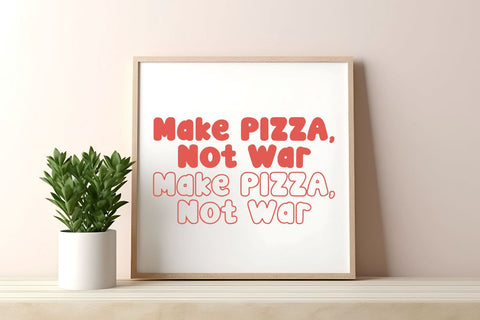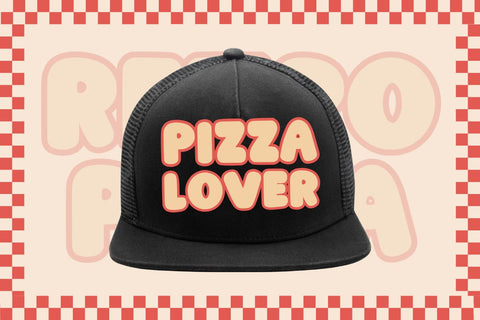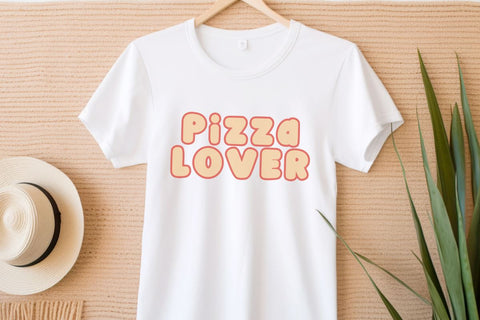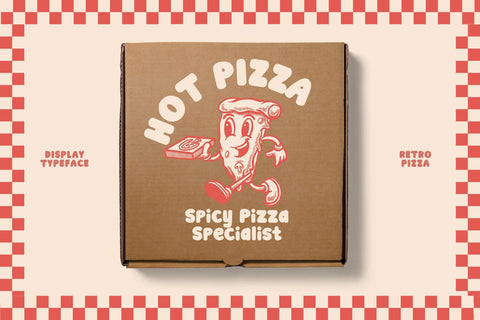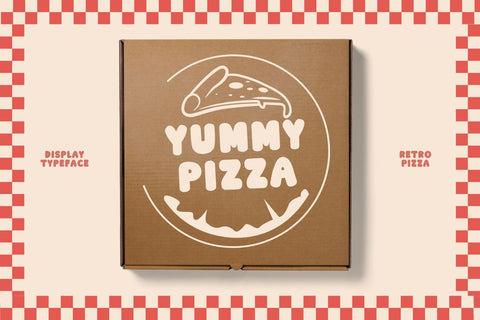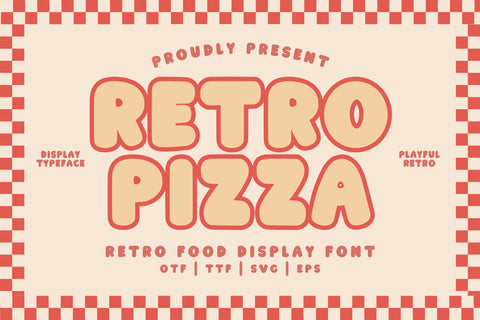
Retro Pizza - Retro Food Display Font
Retro Pizza is a retro display font suitable for Pizza Boxes. This font is inspired by delicious looking pizza packaging designs. This font is perfect for pizza box covers and other food branding. Apart from that, this font is also suitable for various creative needs such as labels, stickers, journals, apparel, t-shirts, Cricut, cutting machines, wall art and other creative ideas. This font is also perfect for advertising media such as YouTube thumbnails and social media needs.